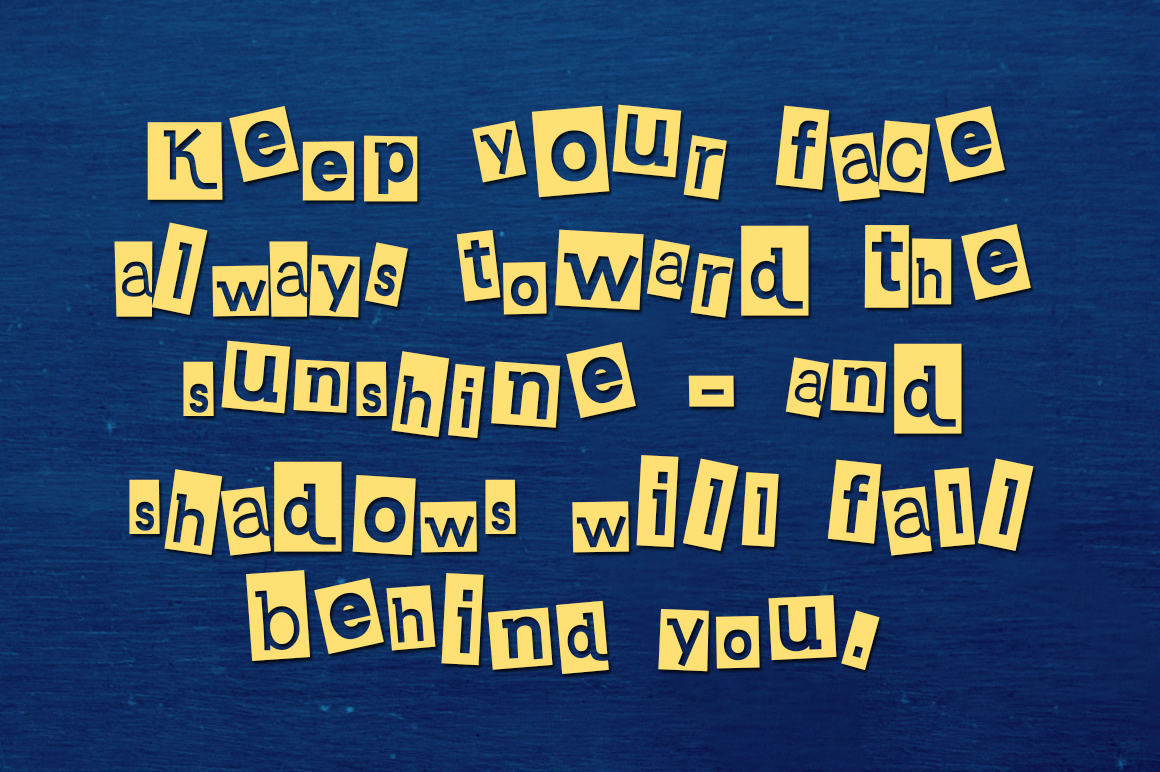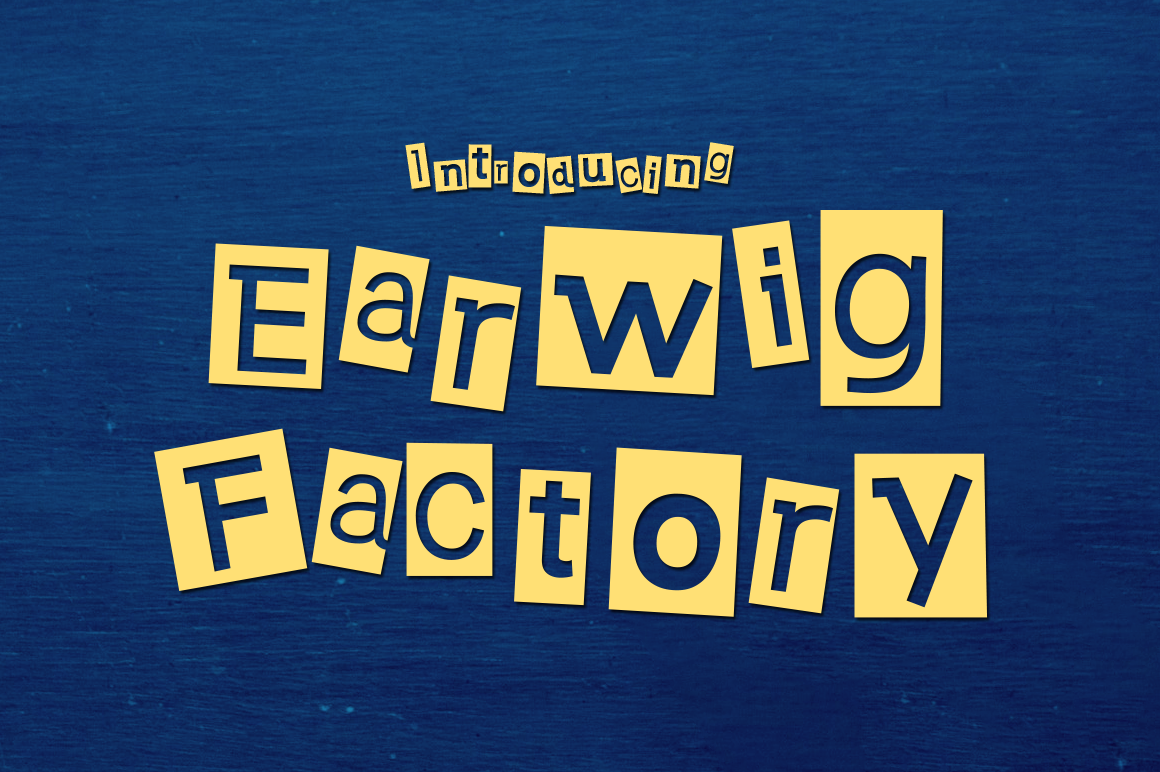
HomePersonal Use FreeEarwig Factory Personal Use Free Earwig Factory FacebookTwitterPinterestWhatsApp 1 of 2 About Earwig Factory Font Earwig Factory is a jumbled alphabet mounted on weird little cards. Get this funky, eclectic display font for free from Typodermic. DOWNLOAD NOW People also explored Grindline Font Hello Dear Font Morem Font Pattaya Font Dream Font Shimbi Font Auber Font Calligraphy Font Sweet Home Font 259 0 TagsEarwig Factory Font Previous articleDeftoneNext articleBlue Highway LEAVE A REPLY Cancel reply Comment: Please enter your comment! Name:* Please enter your name here Email:* You have entered an incorrect email address! Please enter your email address here Website: Save my name, email, and website in this browser for the next time I comment. Personal Use Free Omellia Personal Use Free Read more about this font Ernesthuge Personal Use Free Read more about this font BD Beans Personal Use Free Read more about this font Vexler Slip Personal Use Free Read more about this font BLOG Elegant Wedding Invitation Fonts – Handwritten & Script Fonts Elegant Wedding Invitation Fonts Your wedding day is one of the most important moments of your life, and every detail matters—including your invitation design. Our... Using Fonts in Digital Marketing: Tips to Strengthen Your Brand Identity Top 7 Google Fonts Alternatives for Faster and Privacy-Friendly Web Design (2025) Where to Buy American Fonts Online in 2024